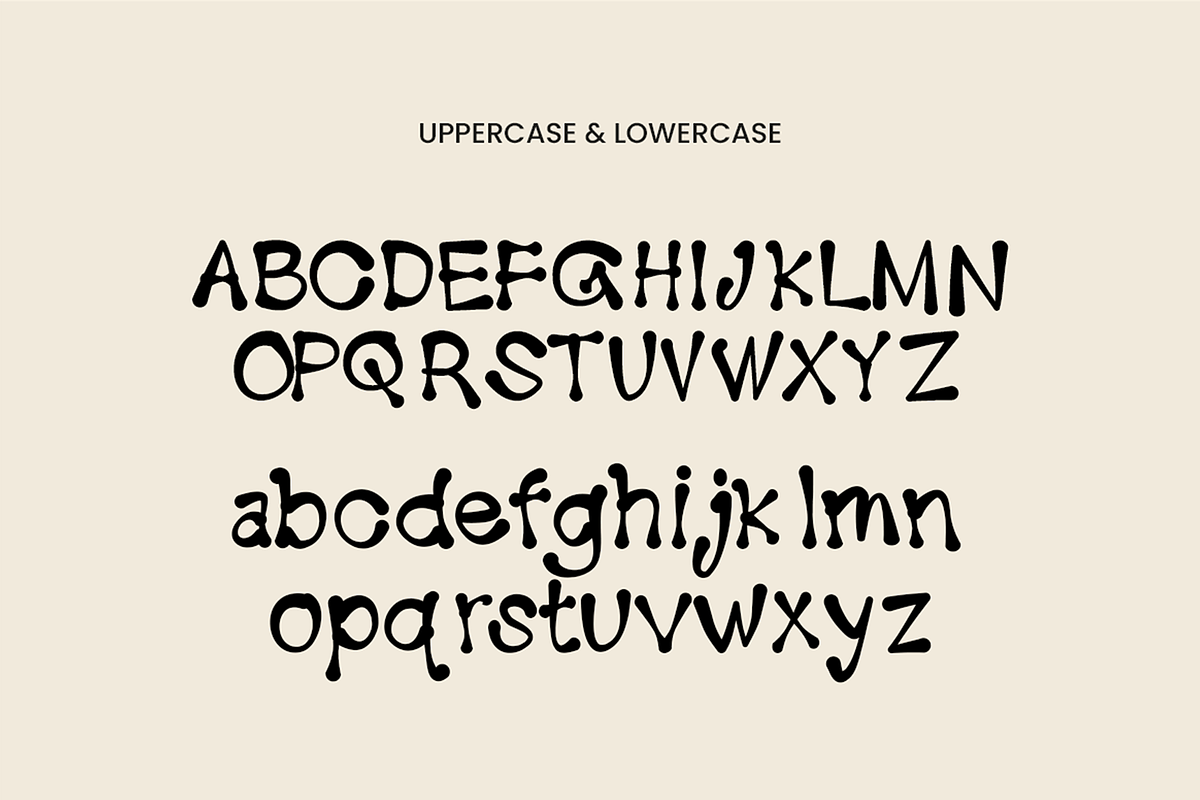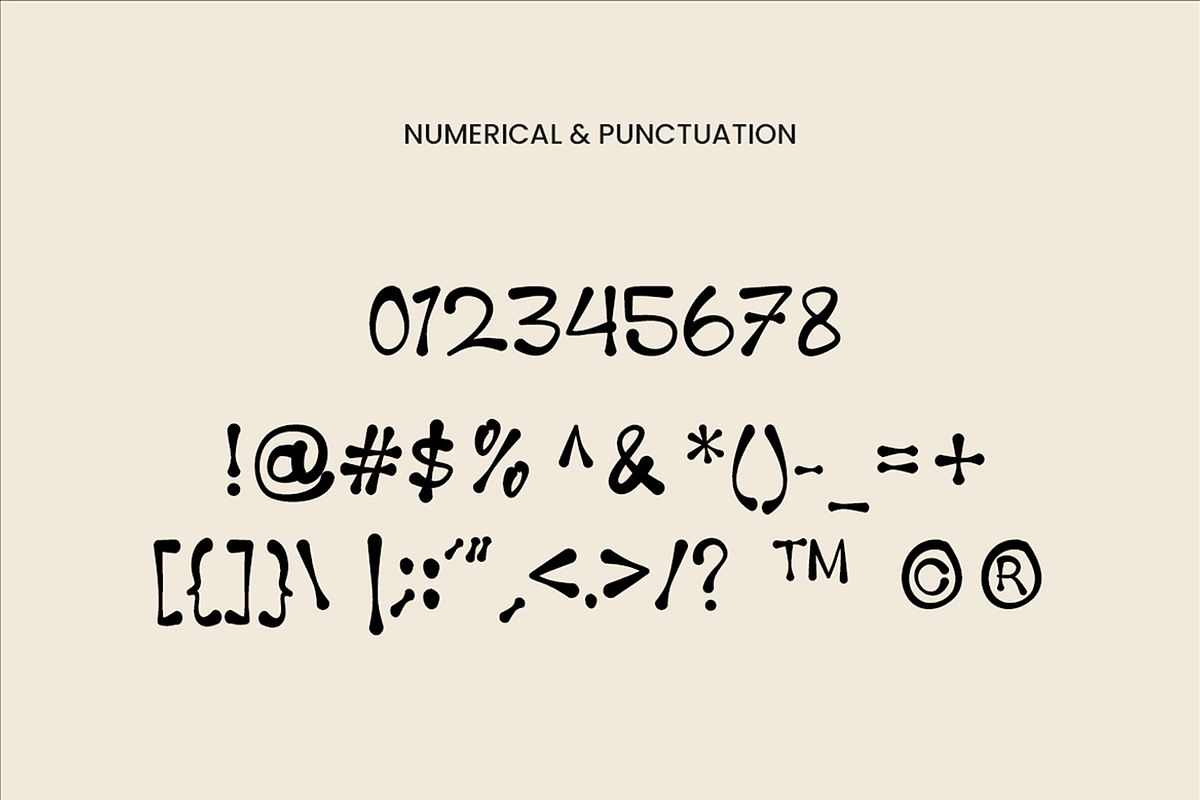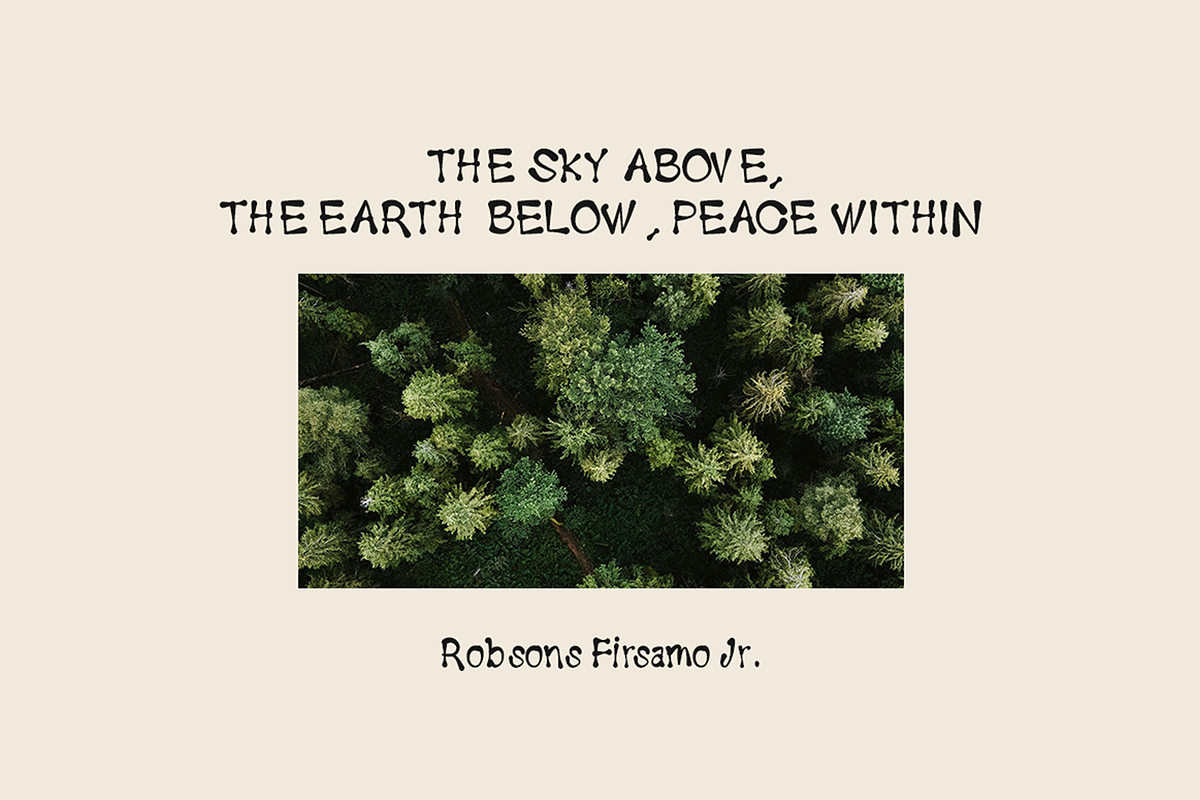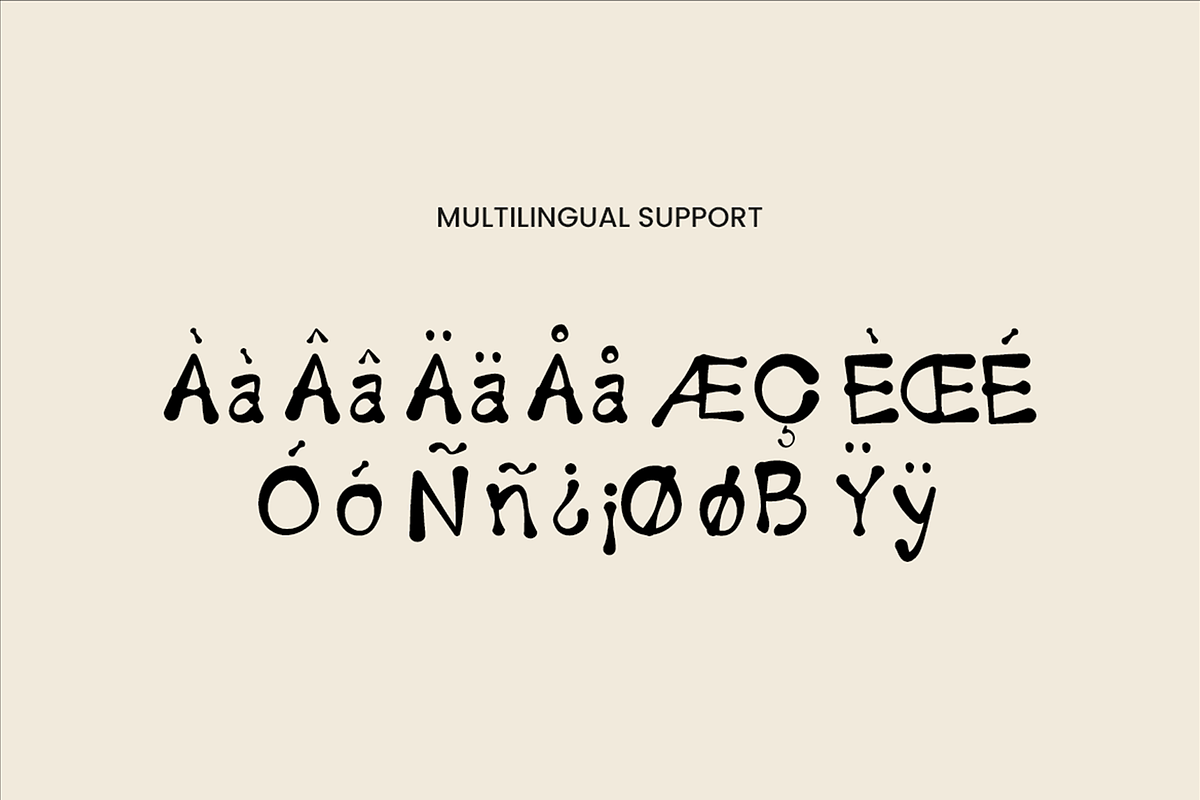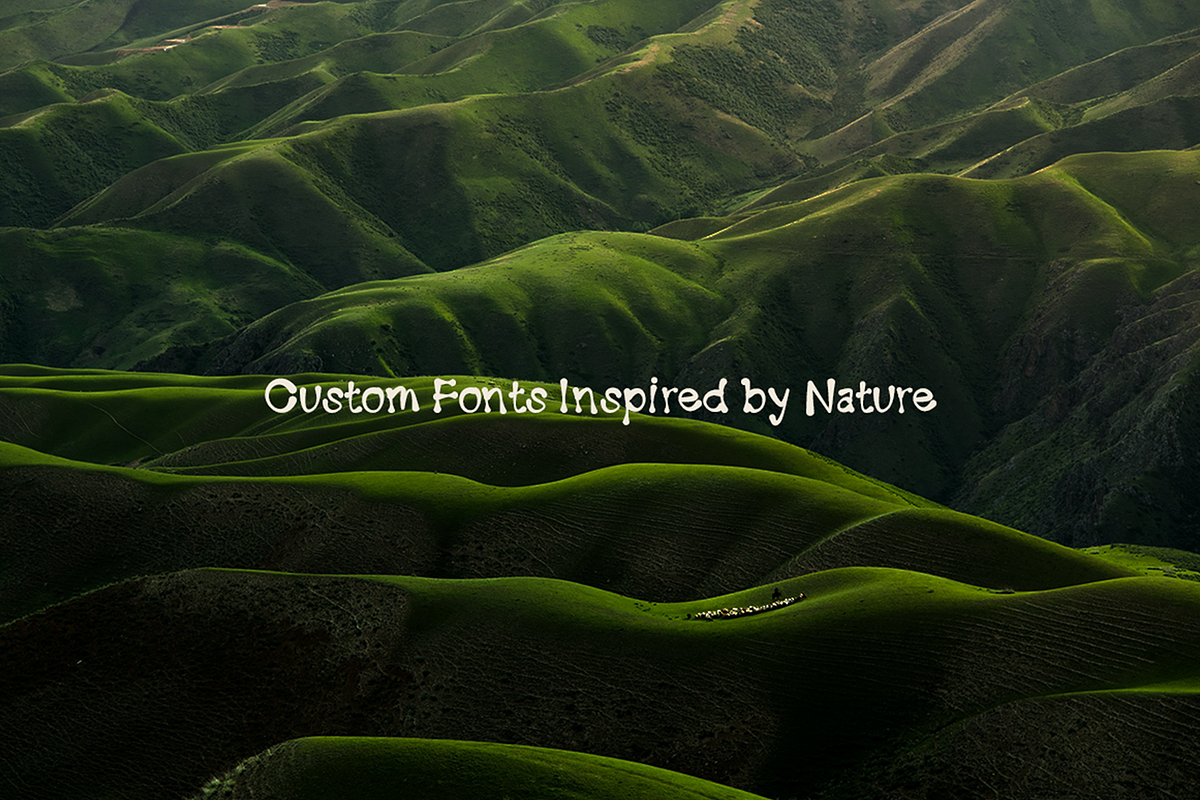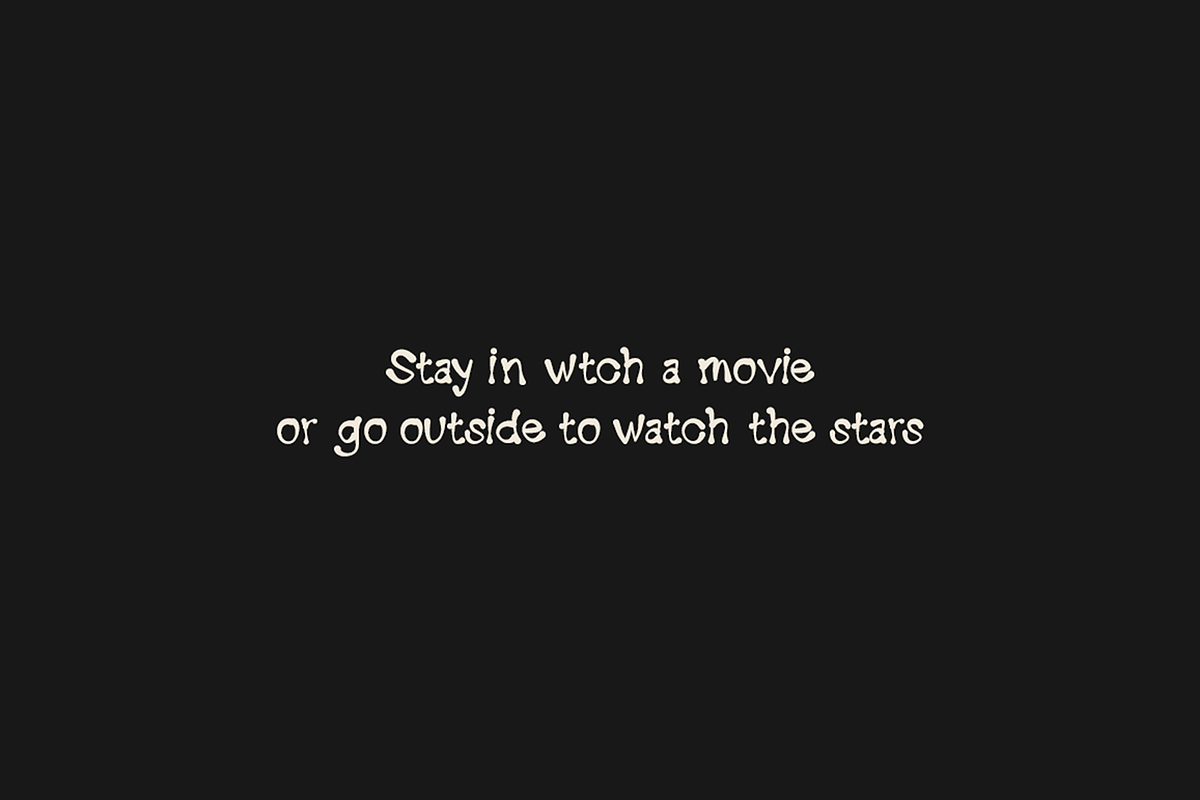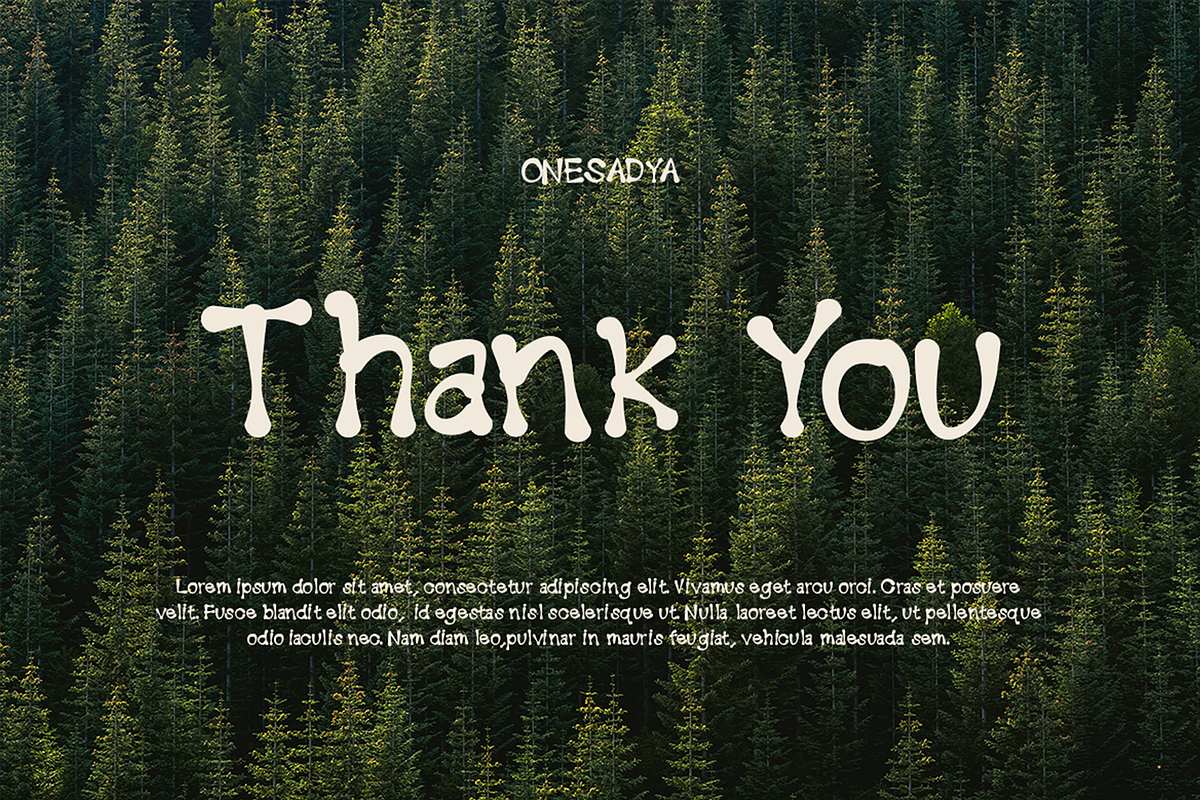
Berro – Handdrawn Display Typeface
Berro – Handdrawn Display Font
Berro is a playful hand-drawn display font inspired by the beauty and organic character of nature. With its naturally imperfect strokes, expressive shapes, and handmade feel, Berro brings warmth, creativity, and a charming outdoor vibe to every design.
Designed with a distinctive handcrafted personality, Berro is perfect for projects that need a natural, artistic, friendly, and eye-catching look. Its organic character works beautifully for branding, packaging, posters, greeting cards, stationery, apparel, children’s products, social media graphics, logos, and creative nature-themed projects.
Hand-drawn & organic letterforms
Playful and expressive display style
Nature-inspired aesthetic
Unique handmade character
Perfect for headlines and eye-catching designs
Great for branding and packaging
Suitable for print and digital projects